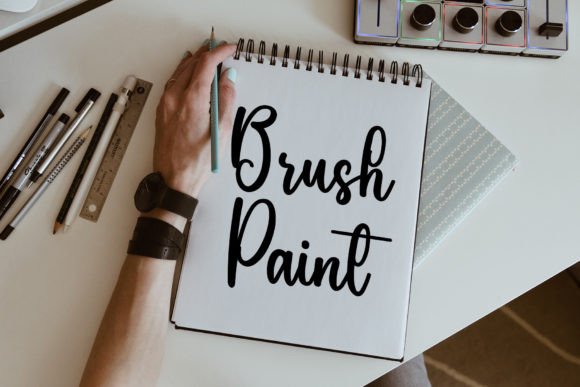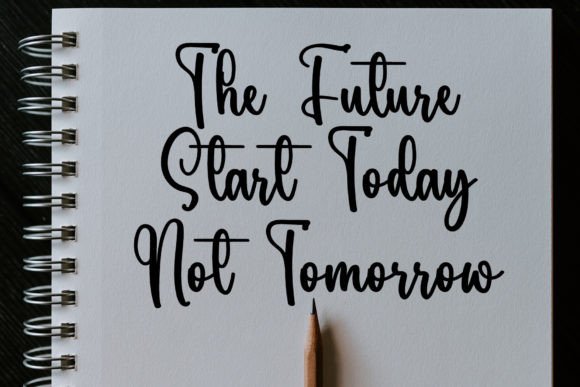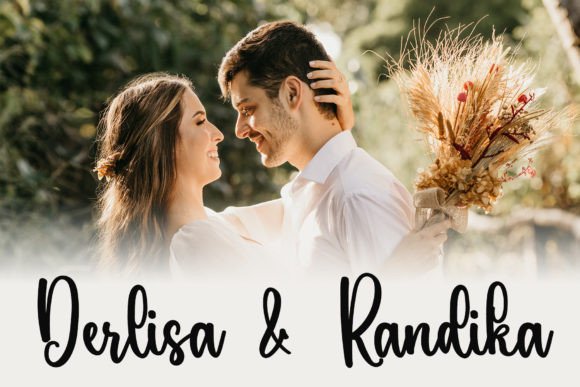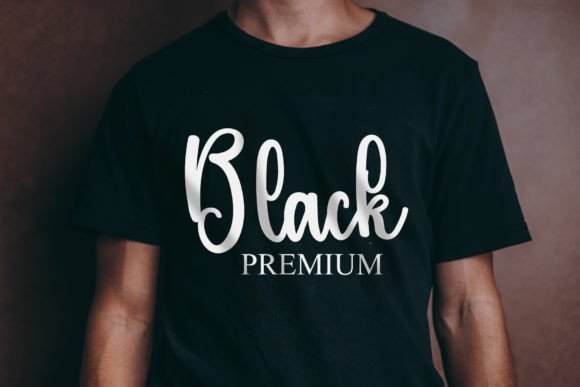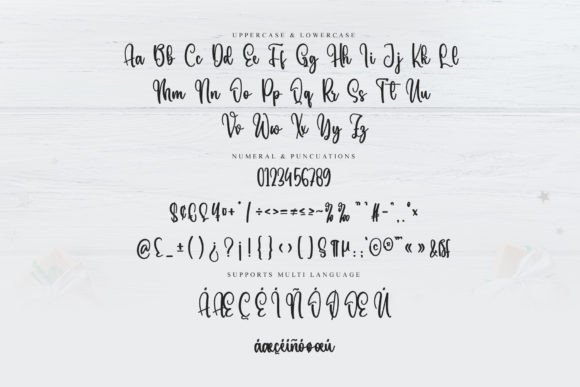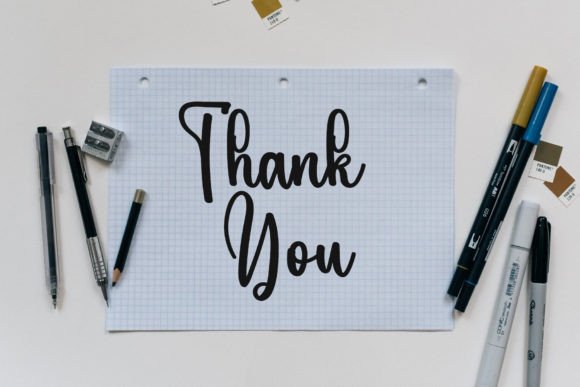
Introducing Crushy Font: The Modern and Friendly Handwritten Font
In the world of typography, a good font can make all the difference in the success of a design project. Whether you’re a seasoned designer or a crafty DIY enthusiast, having the right font at your disposal can elevate your creations and set them apart from the rest. That’s where Crushy Font comes in – a modern and friendly handwritten font that’s sure to become a valuable asset in your font library.
What Makes Crushy Font Special?
Crushy Font is a beautifully crafted font that’s been designed with attention to detail and a focus on legibility. Its modern and friendly aesthetic makes it perfect for a wide range of design projects, from branding and advertising to crafting and DIY tutorials. The font’s neat and highly detailed construction ensures that it will look great in both digital and print formats, making it a versatile choice for designers and crafters alike.
Key Features of Crushy Font
• Modern and Friendly Aesthetic: Crushy Font boasts a fresh and approachable look that’s perfect for designs that require a personal touch.
• Highly Detailed Construction: The font’s intricate details and neat construction ensure that it will look great in a variety of design applications.
• Legibility: Crushy Font is designed to be easy to read, making it perfect for body text, headings, and titles.
• Versatility: The font’s flexibility makes it suitable for a wide range of design projects, from digital designs to print materials.
Why You’ll Love Crushy Font
As a designer or crafter, you know how important it is to have a font that can keep up with your creative vision. Crushy Font is more than just a font – it’s a tool that can help you bring your ideas to life. Here are just a few reasons why you’ll love Crushy Font:
• Customizable: The font’s flexibility makes it easy to adjust and customize to suit your design needs.
• Unique and Creative: Crushy Font’s modern and friendly aesthetic ensures that your designs will stand out from the crowd.
How to Use Crushy Font in Your Designs
Now that you’re excited about Crushy Font, you’re probably wondering how to incorporate it into your designs. Here are a few ideas to get you started:
• Branding and Logo Design: Use Crushy Font to create a unique and memorable brand identity.
• Digital Designs: Add a personal touch to your social media graphics, blog posts, and website designs.
• Print Materials: Use Crushy Font in your print designs, such as brochures, flyers, and business cards.
• Crafting and DIY Projects: Add a touch of personality to your crafting and DIY projects, such as handmade cards and gift tags.
In conclusion, Crushy Font is a modern and friendly handwritten font that’s sure to become a valuable asset in your font library. Its highly detailed construction, legibility, and versatility make it perfect for a wide range of design projects. Whether you’re a designer or crafter, Crushy Font is a great choice for anyone looking to add a personal touch to their creations. So why wait? Download Crushy Font today and start elevating your designs to the next level!